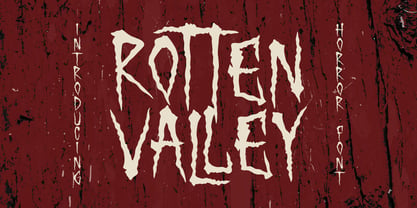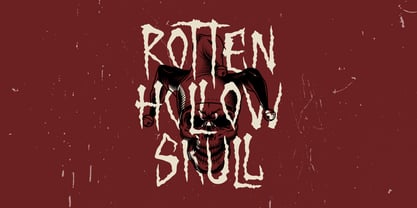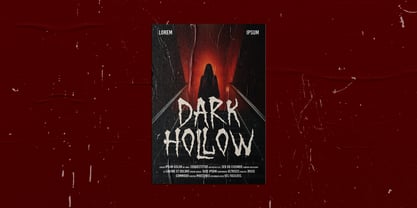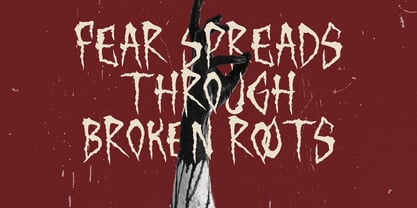
Rotten Valley
by Shanaf
The Rotten Valley Font Family was designed by Yesie Erma Yunita and published by Shanaf. Rotten Valley contains 1 styles. More about this family
Rotten Valley is a bone-chilling horror font designed to grip your audience with an eerie visual experience. The letterforms are jagged, asymmetrical, and purposely uneven—mimicking decayed wood, torn flesh, or twisted roots. Each stroke appears carved or slashed, with long spindly extensions that evoke the look of claw marks or deteriorated bone. This grotesque and organic structure gives Rotten Valley an intensely raw aesthetic, perfectly suited for unsettling design themes. Set against dark, grungy backdrops, the off-white glyphs bleed with menace, enhancing the chilling atmosphere. Its deliberate irregularity and distressed look immediately scream "danger," making it ideal for horror-centric projects.
Rotten Valley is tailored for horror movie posters, haunted house branding, scary game titles, eerie Halloween event materials, thriller book covers, or any design needing a macabre flair. It supports full uppercase and lowercase letters, numerals, punctuation, and essential symbols, offering flexibility for layout while retaining a consistent horrifying tone. The visual texture aligns perfectly with blood-splattered, worn-out, or decrepit themes, as demonstrated in the preview images. With its high-impact, terror-driven character set, Rotten Valley is not just a font—it’s a gateway into fear.
Designers: Yesie Erma Yunita
Current Foundry: Shanaf